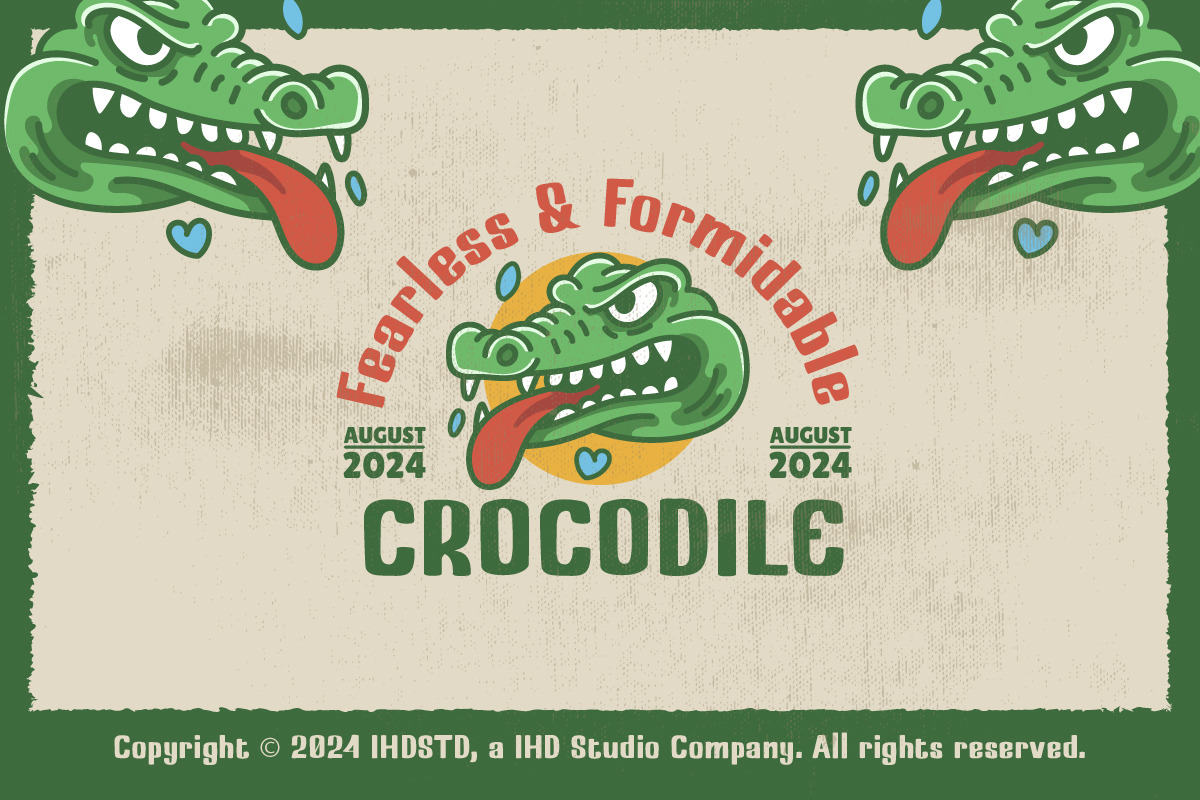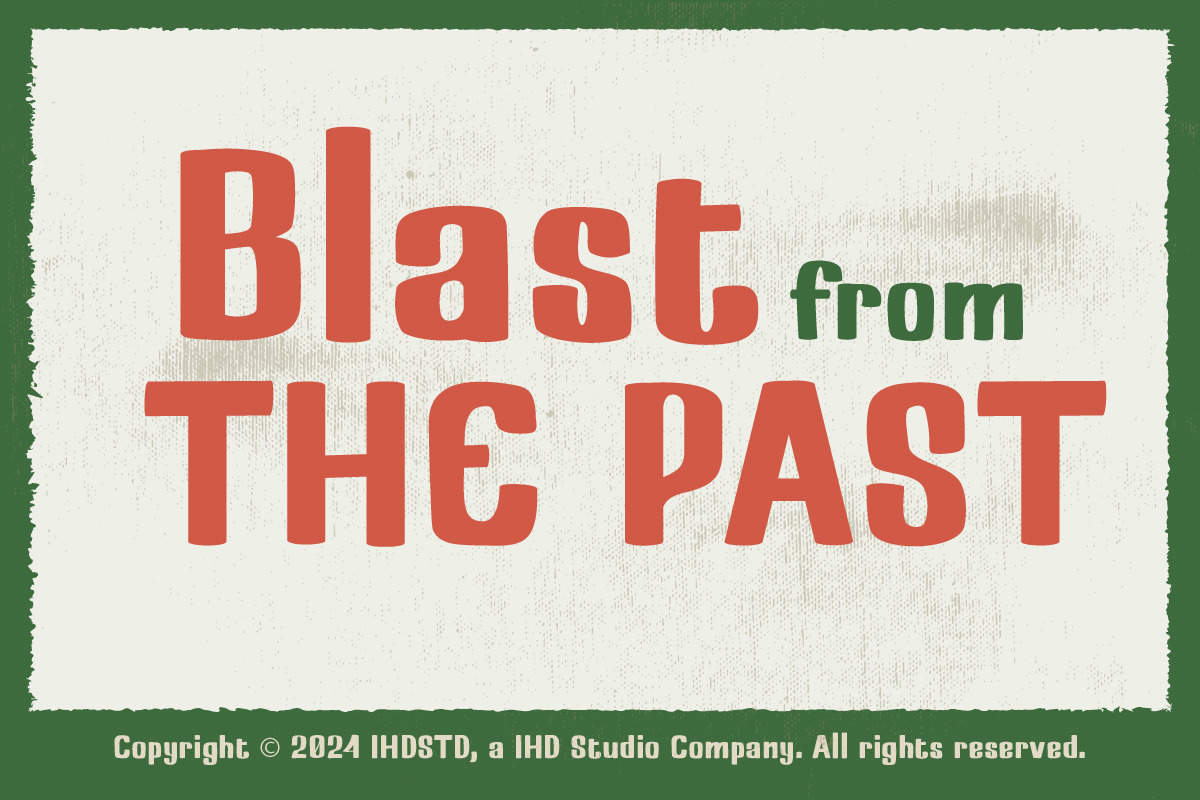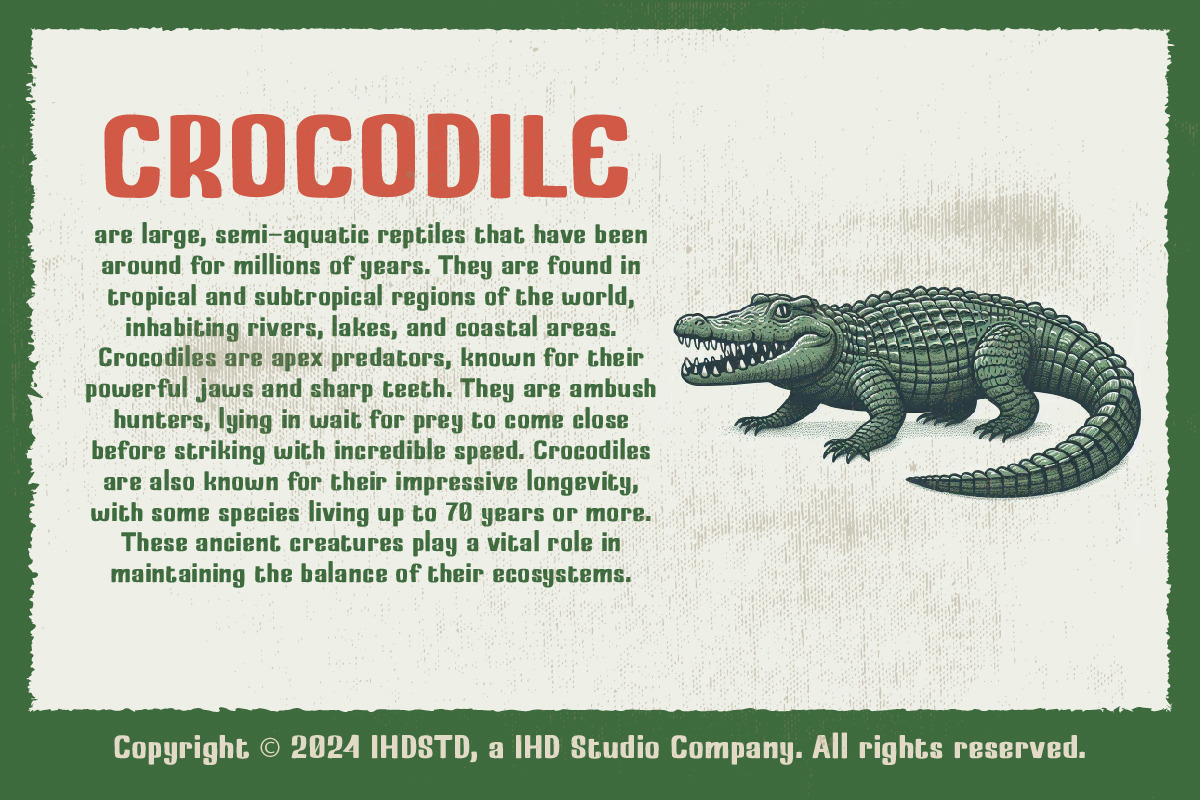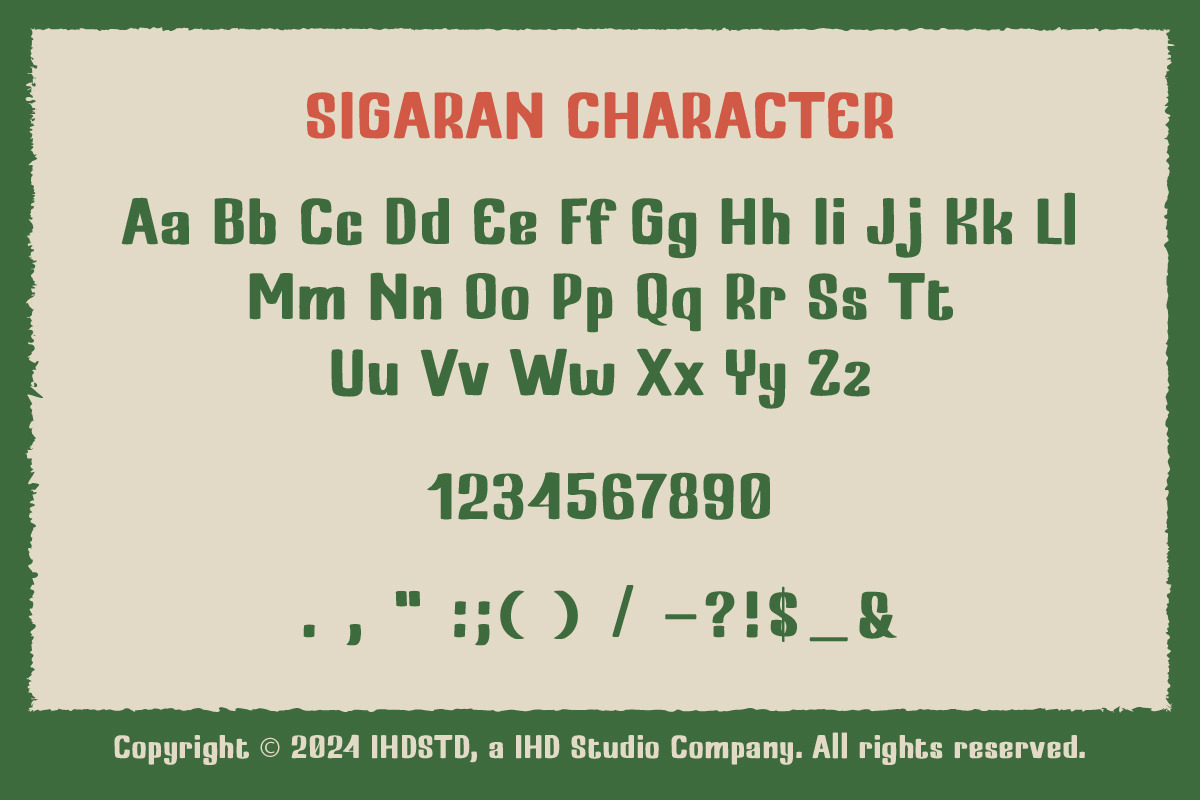
Sigaran Hand Drawn Vintage Display F
Sigaran Hand Drawn Vintage Display Font is our new item that suitable for your Posters.
Great for Logo, Poster, Sticker, Jersey, Invitation Card, Brochure, etc.